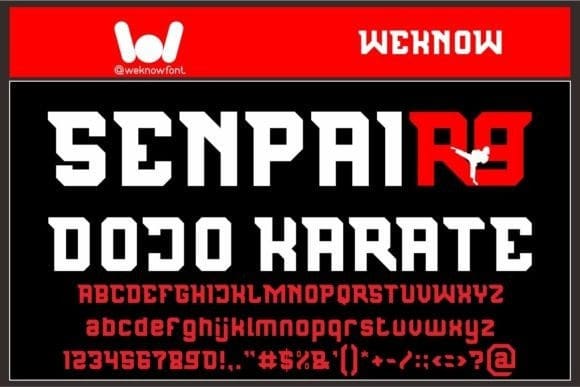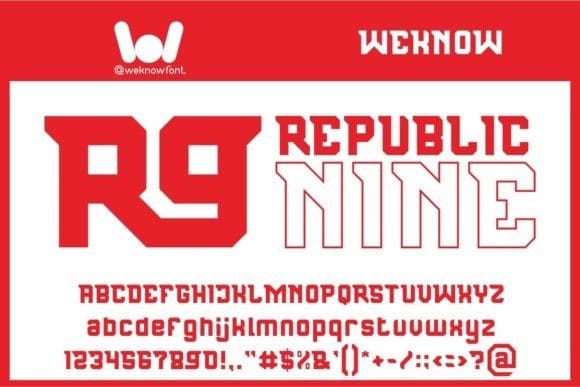
Republic Nine Font
Republic Nine Font, is a modern techno display font. You can use it as a logo, badge, insignia, packaging, headline, poster, t-shirt/apparel, greeting card, and wedding invitation.